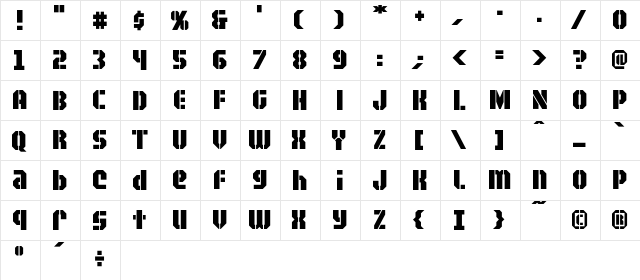
CCArea51Military Regular
Design Context for CCArea51Military Typeface
CCArea51Military draws on military and industrial lettering traditions, with forms that communicate strength and precision.
A strong choice for security brands, outdoor gear, and high-stakes visual communication.
Pro Tip: Try CCArea51Military in all-caps for the most authentic military signage feel. It pairs well with stark, minimal layouts and muted colour palettes.